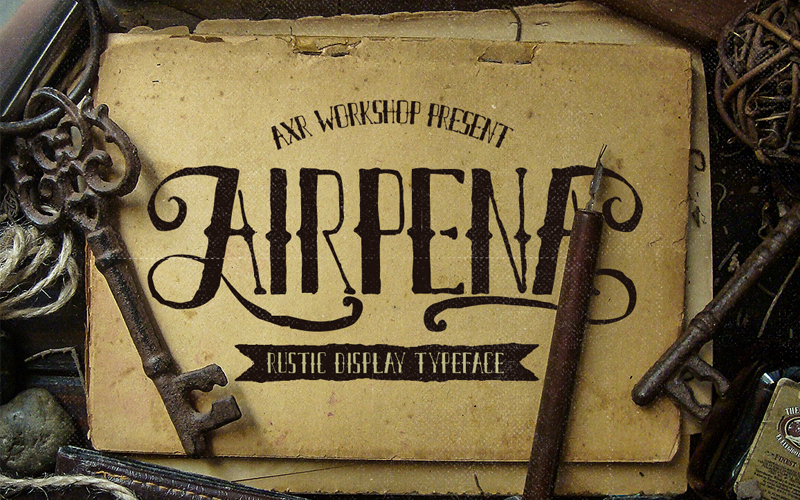
Check the full version or other fonts here : https://creativemarket.com/TSVcreative Airpena is Inspired from rusted and distressed handdrawn lettering used on retro motorcycle. It comes with full alphabet, alternates for Uppercase (Front and back) & Lowercase (end) its give you an exciting experience to use it in titling and or writing. This font is 100% free. You can use it on personal or commercial purpose. But you can't sublicense, modify, or sell the digital files. Want to check another font or freebies? Here is my premium store : https://creativemarket.com/TSVcreative Thanks! |